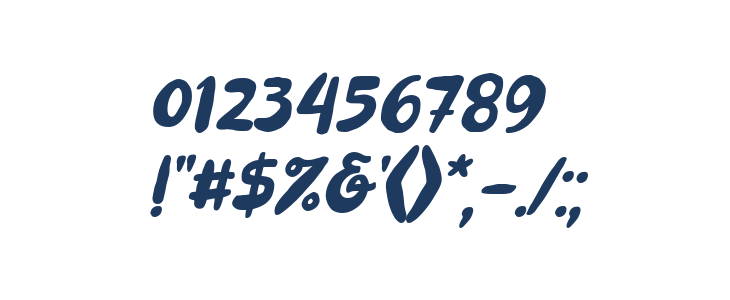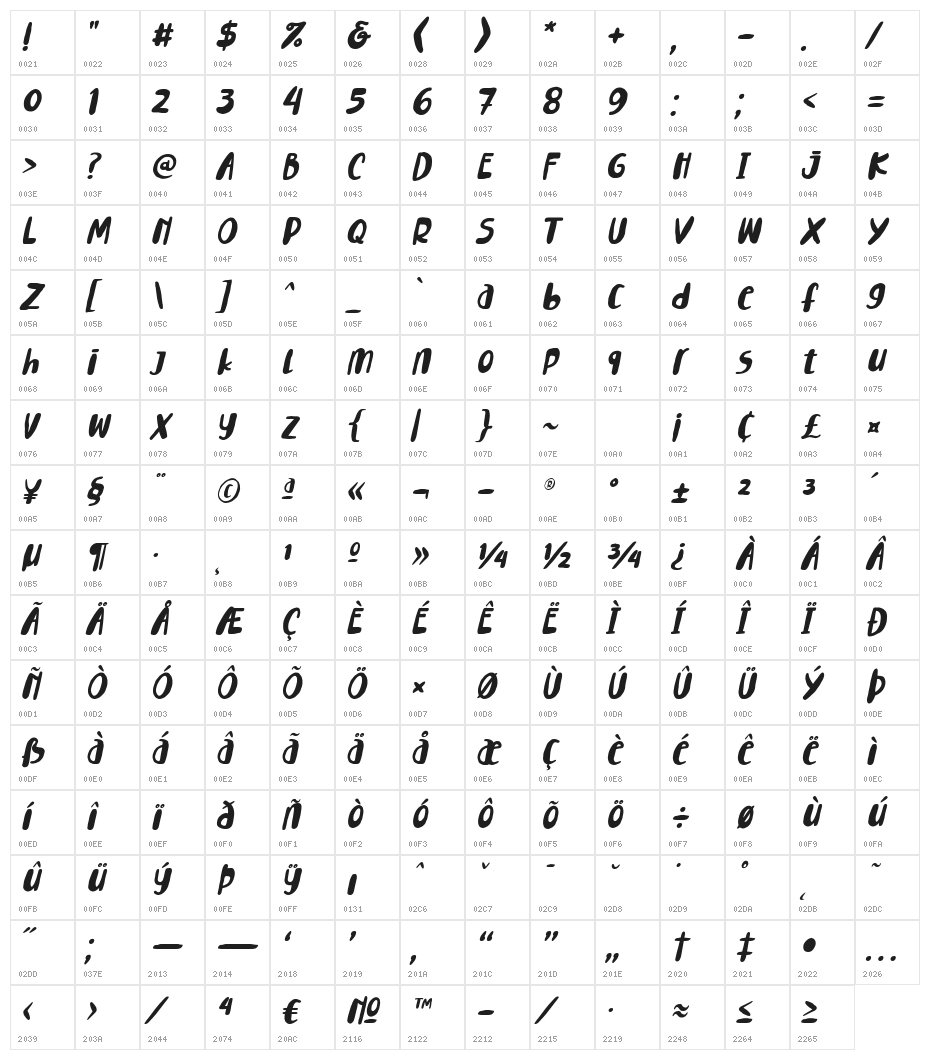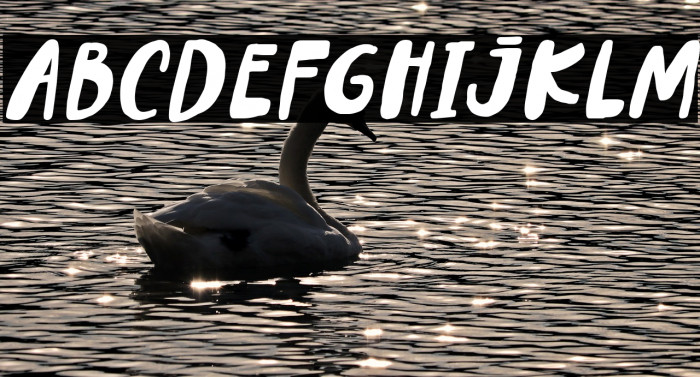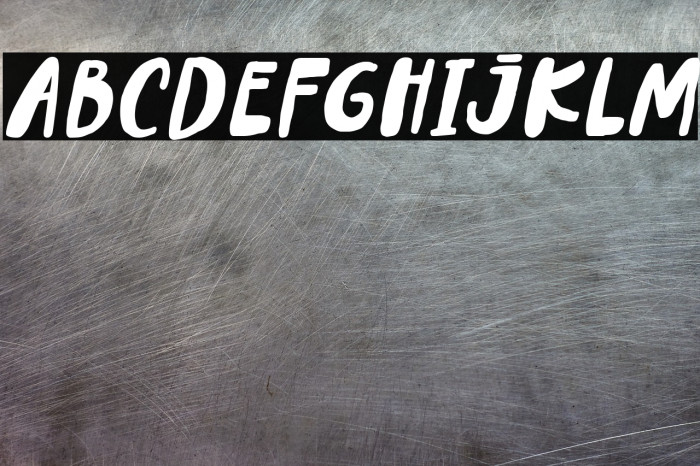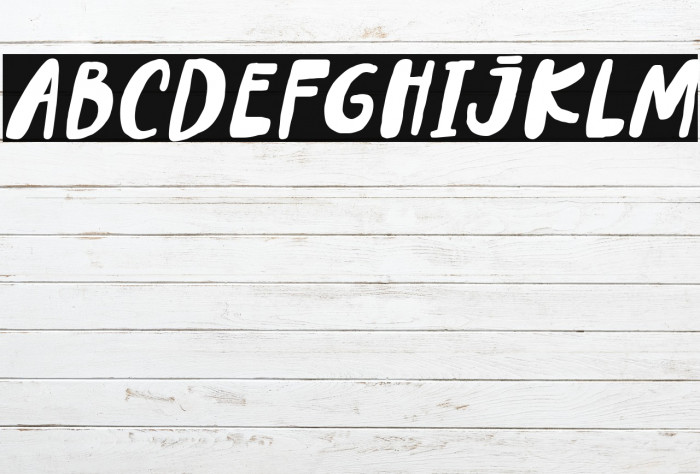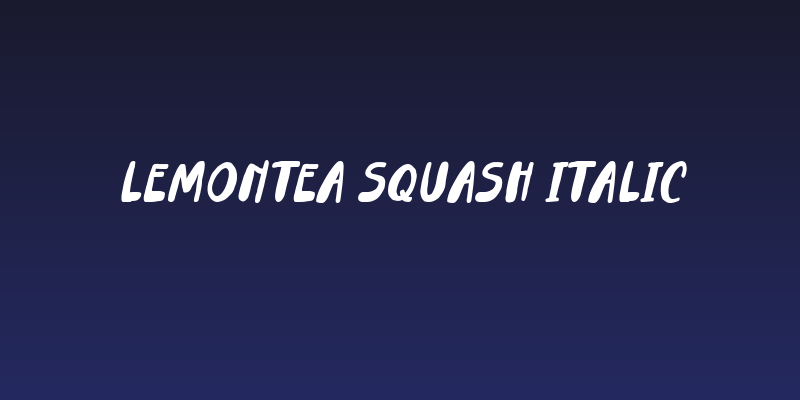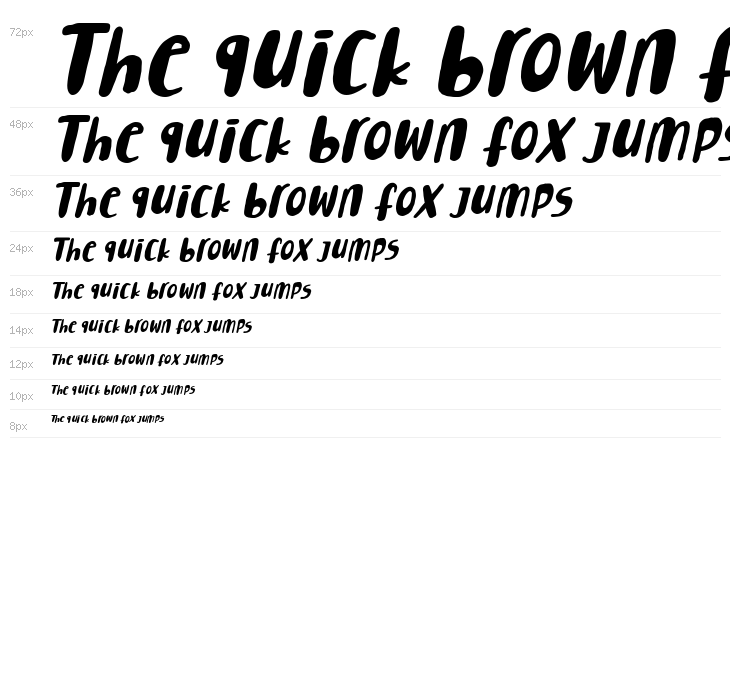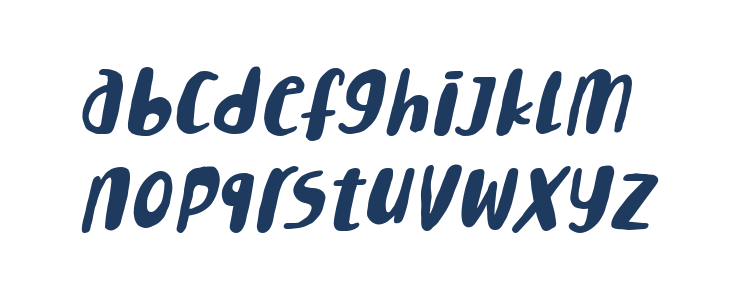
Lemontea Squash Italic Font
Lemontea Squash Italic Description
This font features a playful and dynamic style, characterized by its bold and italicized letterforms. The strokes are thick and rounded, giving it a friendly and approachable appearance. The letters are slightly slanted, enhancing the sense of movement and energy. The uppercase and lowercase characters maintain a consistent style, while the numbers and special characters complement the overall design. This font's unique personality makes it suitable for creative and informal projects.
Overall StylePlayful, Energetic
Proposed ProjectsIdeal for children's books, playful branding, greeting cards, and creative posters.